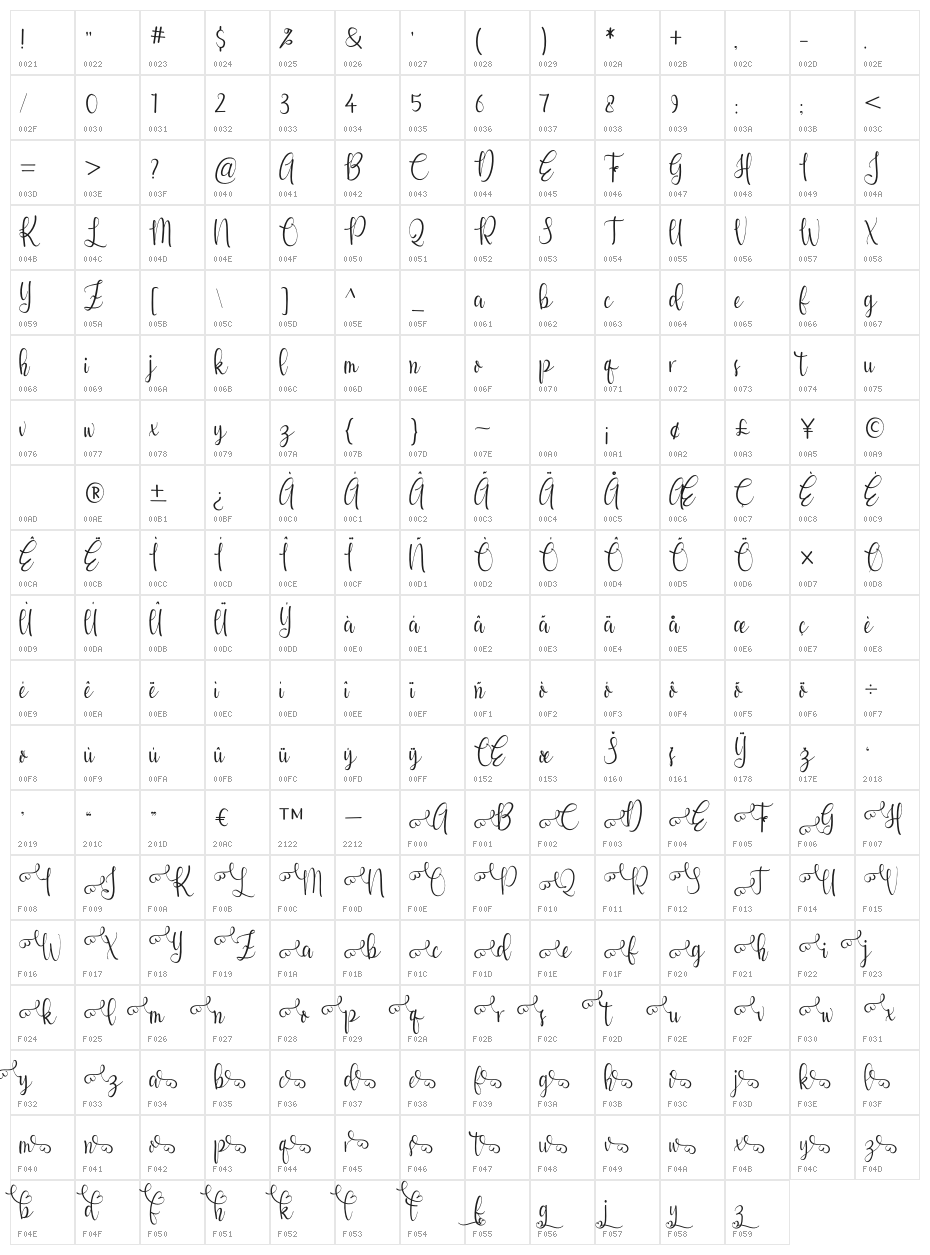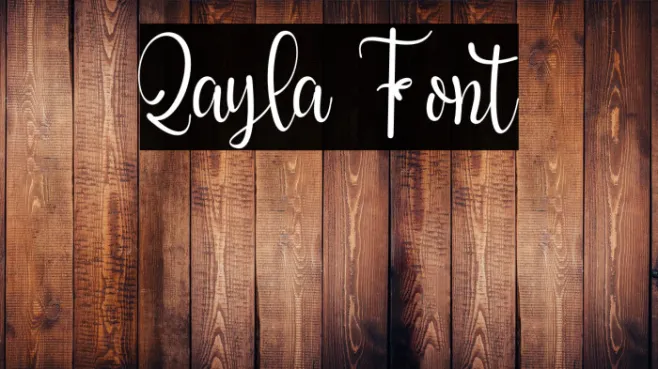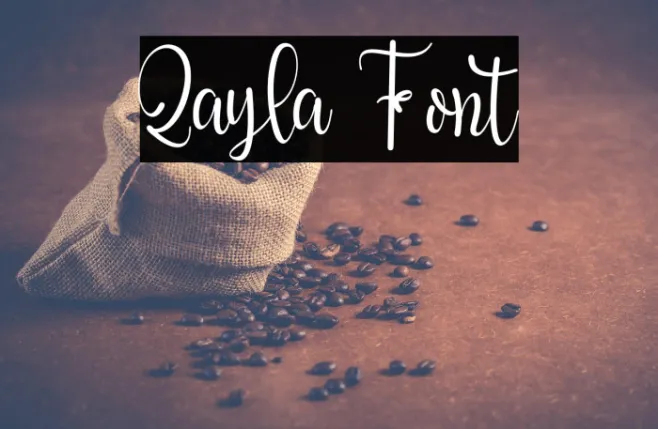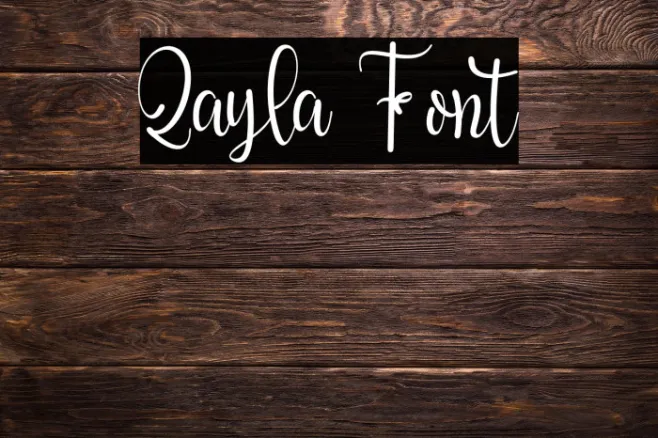
Qayla Font
Qayla Description
This font features a playful and elegant script style with a handwritten appearance. The uppercase letters are tall and slightly narrow, with a whimsical flair that adds a touch of sophistication. The lowercase letters maintain a consistent flow, with smooth curves and loops that enhance the font's fluidity. Numbers are clear and legible, matching the overall style with a slight slant. Special characters are creatively designed, maintaining the font's cohesive look. This font is perfect for projects that require a personal and artistic touch.